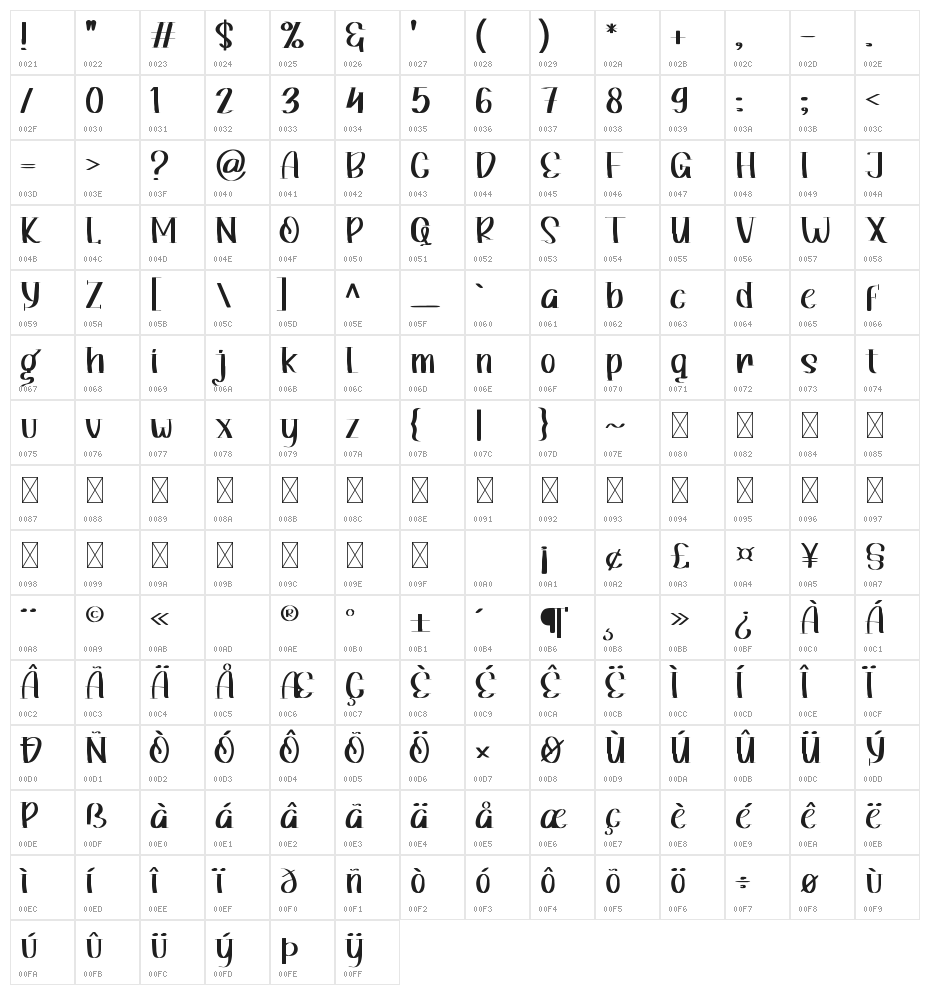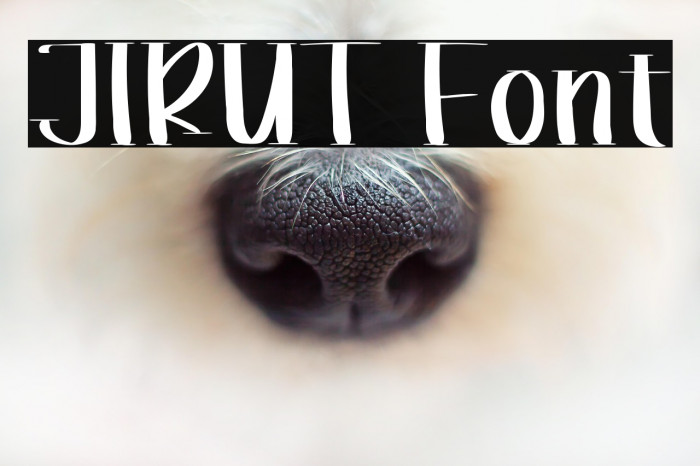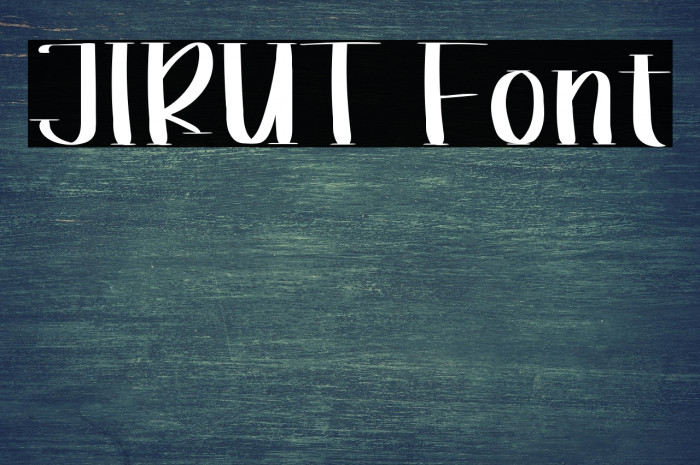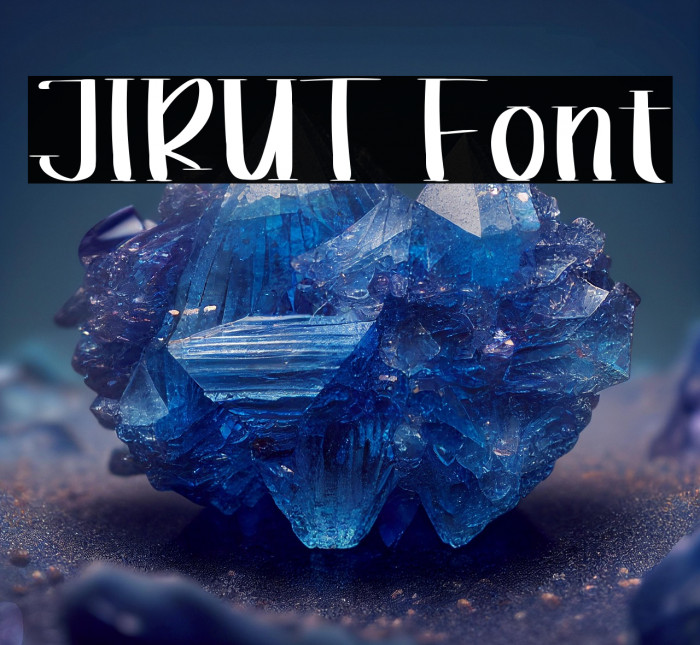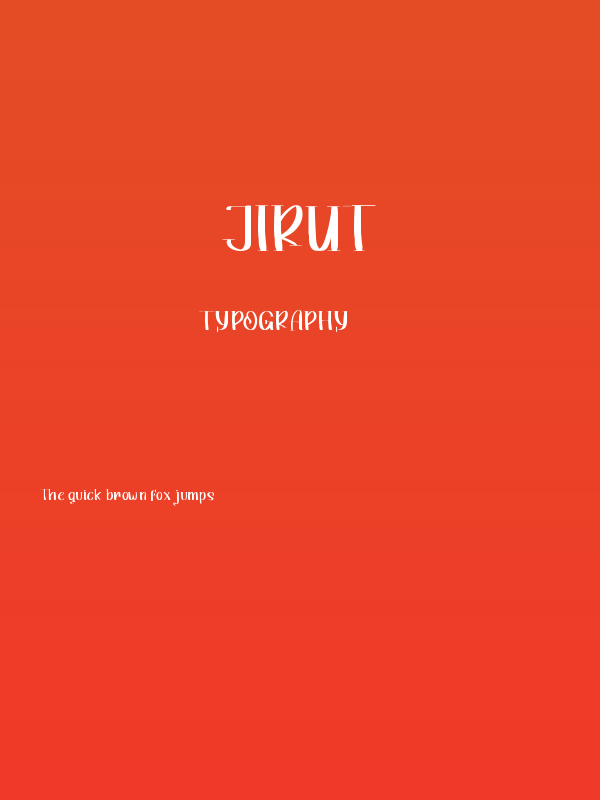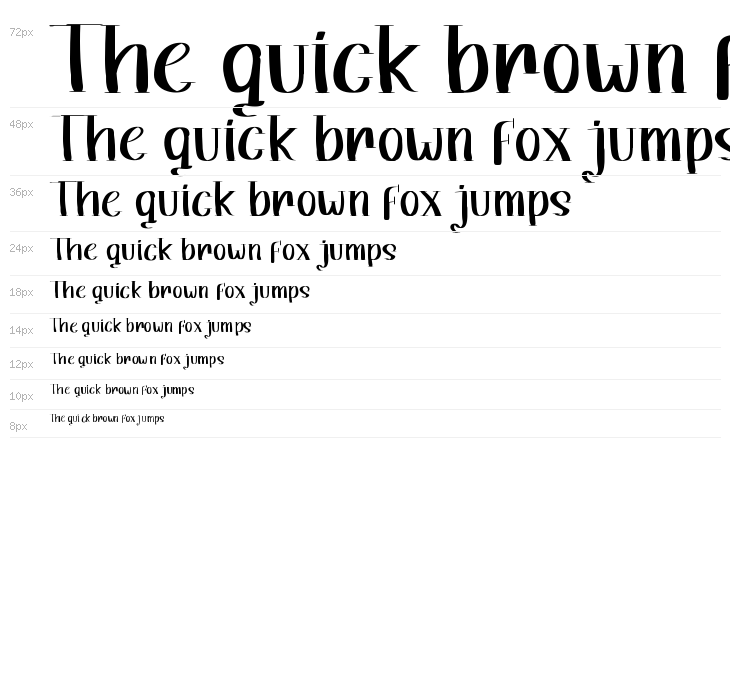
JIRUT Font
JIRUT Description
This font features a unique blend of modern and classic elements, characterized by its bold and dynamic strokes. The uppercase letters exhibit a playful yet sophisticated style with varying stroke widths that add a sense of movement and energy. The lowercase letters maintain a consistent flow, complementing the uppercase with their slightly whimsical curves. Numbers are designed with a similar flair, ensuring readability while maintaining the font's distinctive character. Special characters are crafted with attention to detail, enhancing the font's versatility. Overall, this typeface is ideal for projects that require a touch of creativity and elegance.
| Proposed Projects | Ideal for branding, posters, and creative design projects that need a bold statement. |